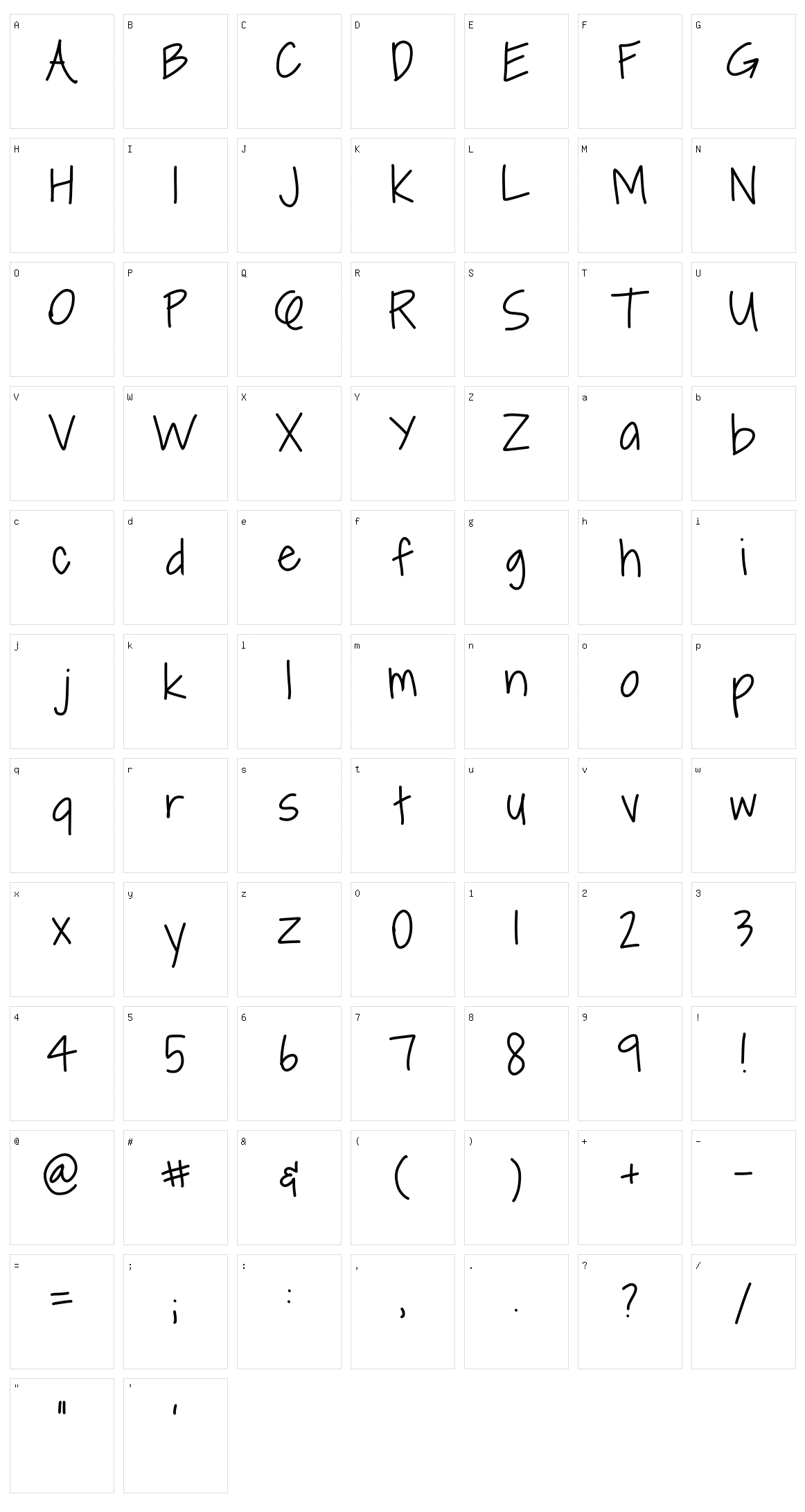
The free font Red Velvet is carefully designed by Geronimo Font Studios, showcasing a thoughtful balance of creativity and usability and falls under the Script font style. When you download the ZIP file, it contains only 11.83 KB of font files, making it lightweight and quick to download. Please review the license details below to understand permitted usage and distribution rights. If license information is not available, we recommend using this font for personal projects only or contacting the author directly for commercial usage permissions.